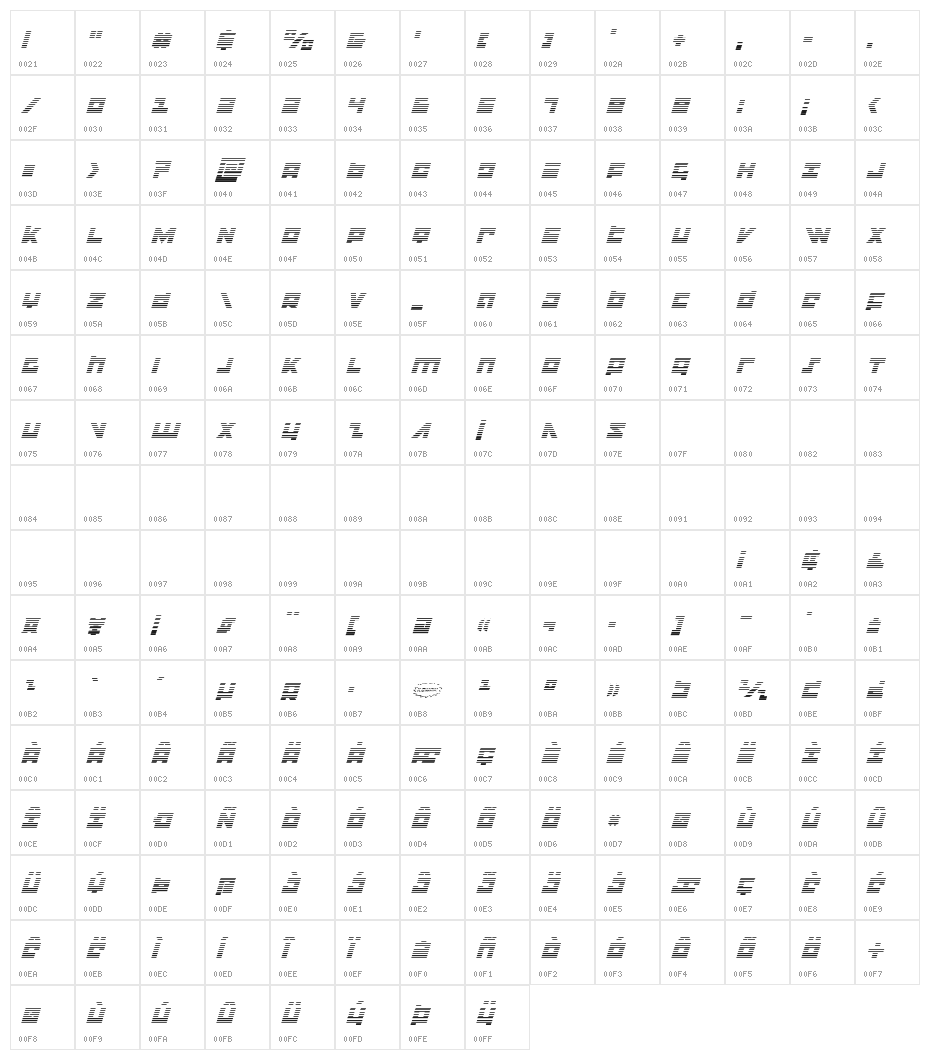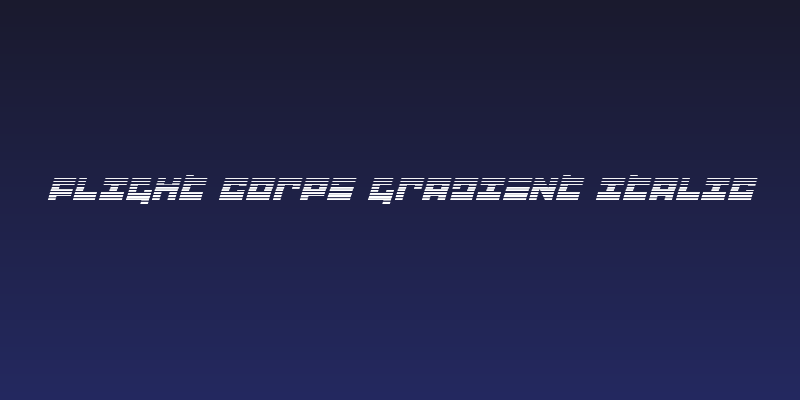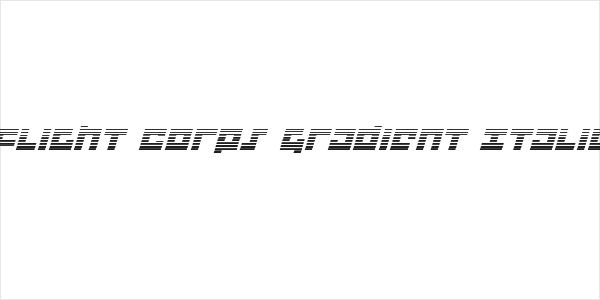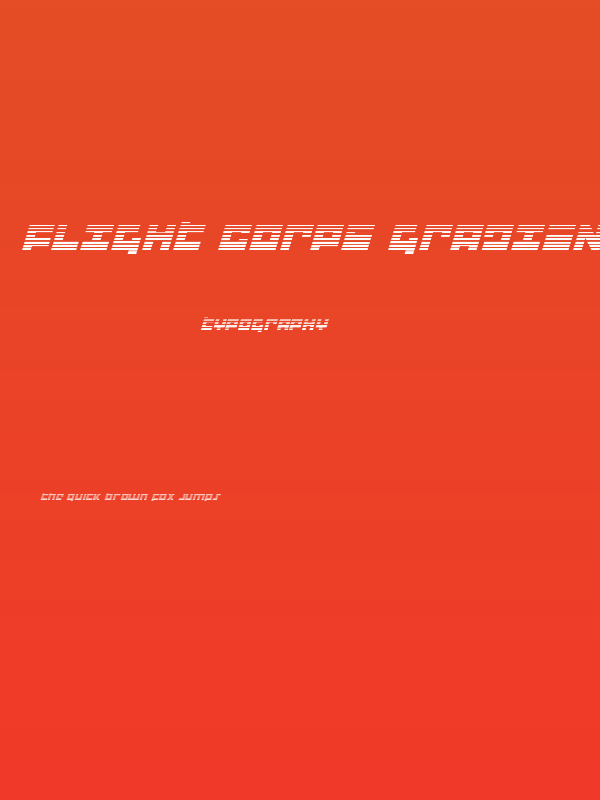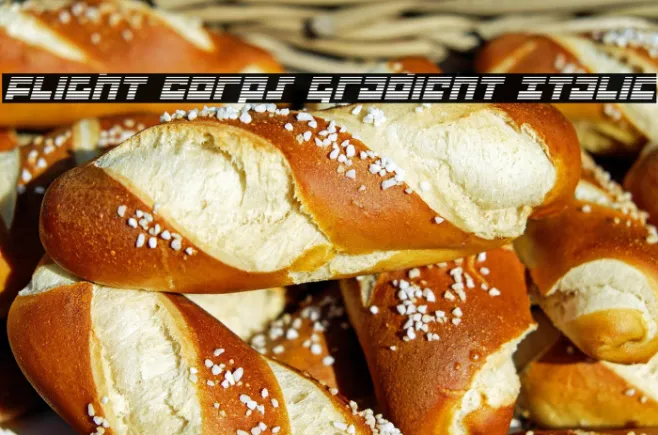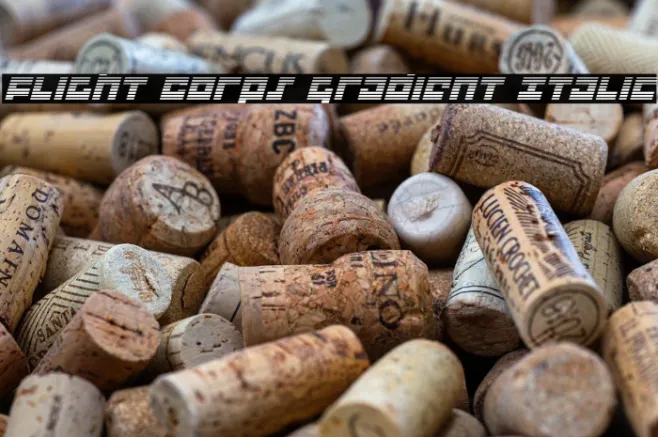
Flight Corps Gradient Italic Font
Flight Corps Gradient Italic Description
This font features a bold, futuristic design with a distinct gradient effect that gives each character a sense of movement and depth. The italicized style enhances its dynamic appearance, making it ideal for projects that require a modern and edgy look. The characters are constructed with horizontal lines that create a striped pattern, adding to the overall high-tech aesthetic. The uppercase and lowercase letters maintain a consistent style, while the numerals and special characters are designed to match the font's unique visual identity. The spacing between characters is tight, contributing to its compact and cohesive appearance.
| Proposed Projects | Ideal for sci-fi themed designs, video game titles, tech branding, and futuristic posters. |